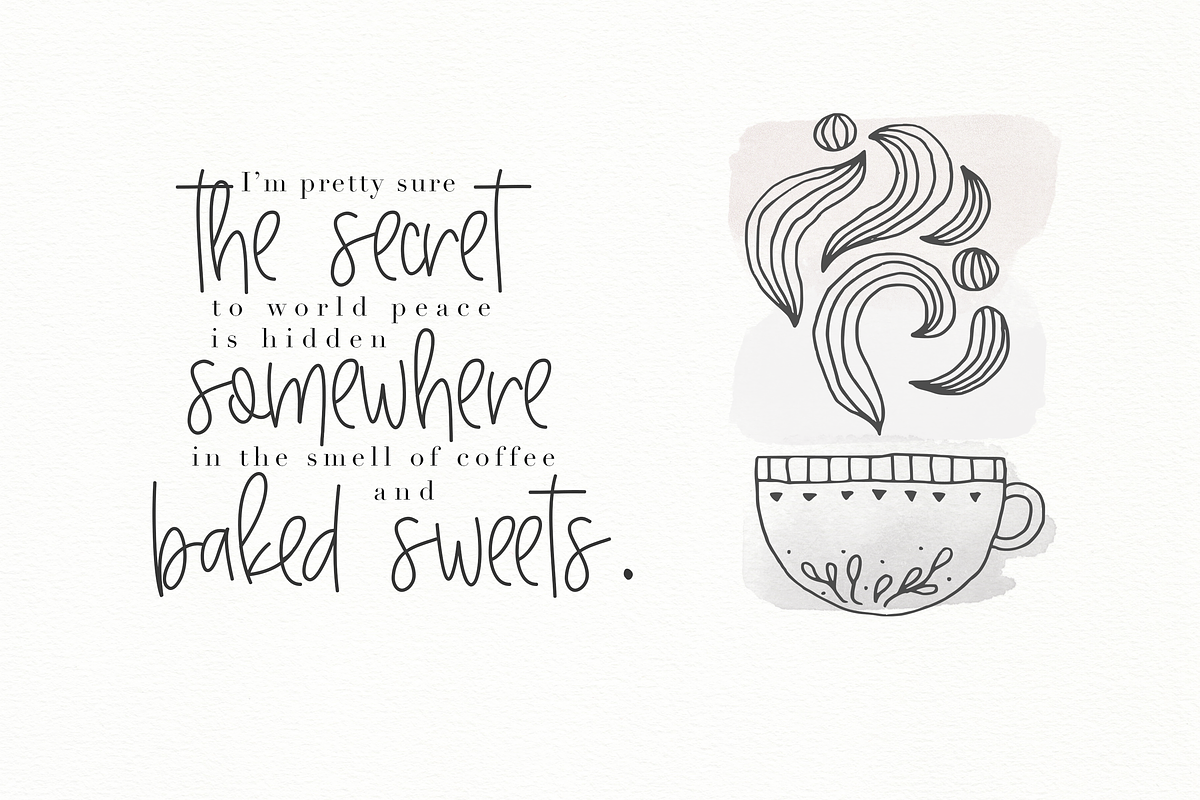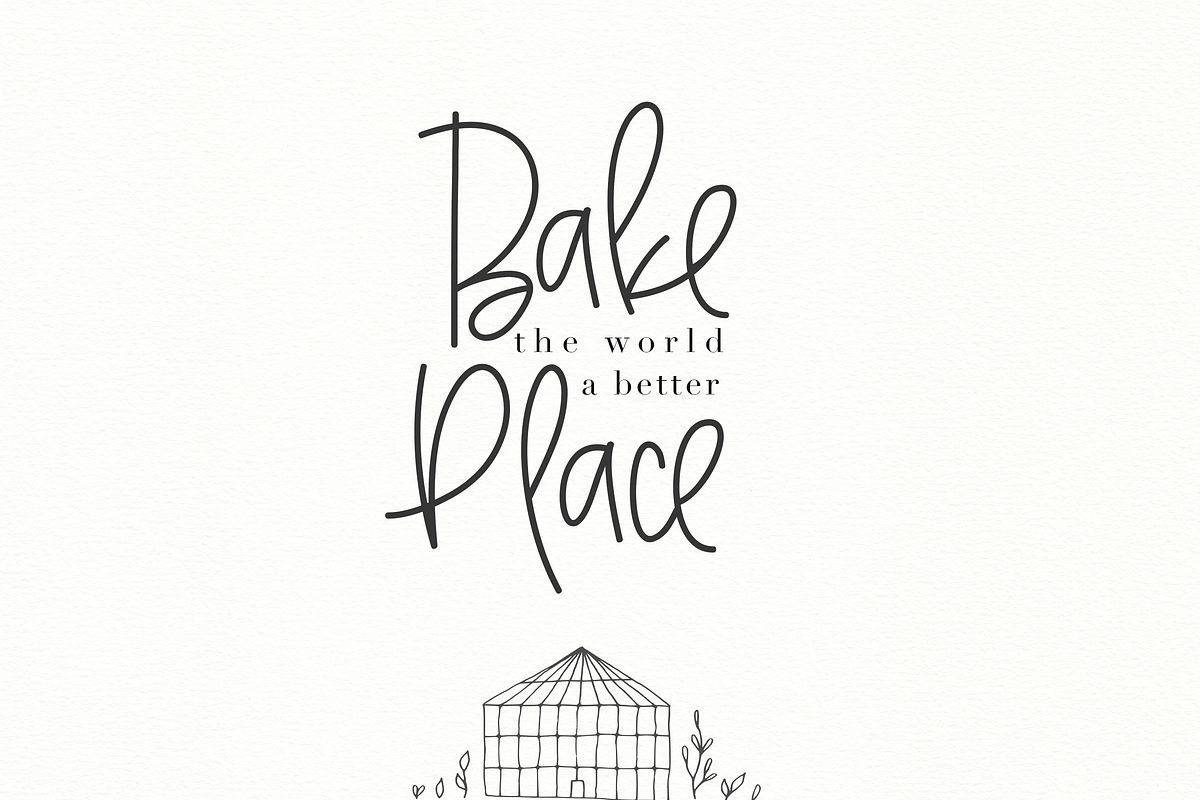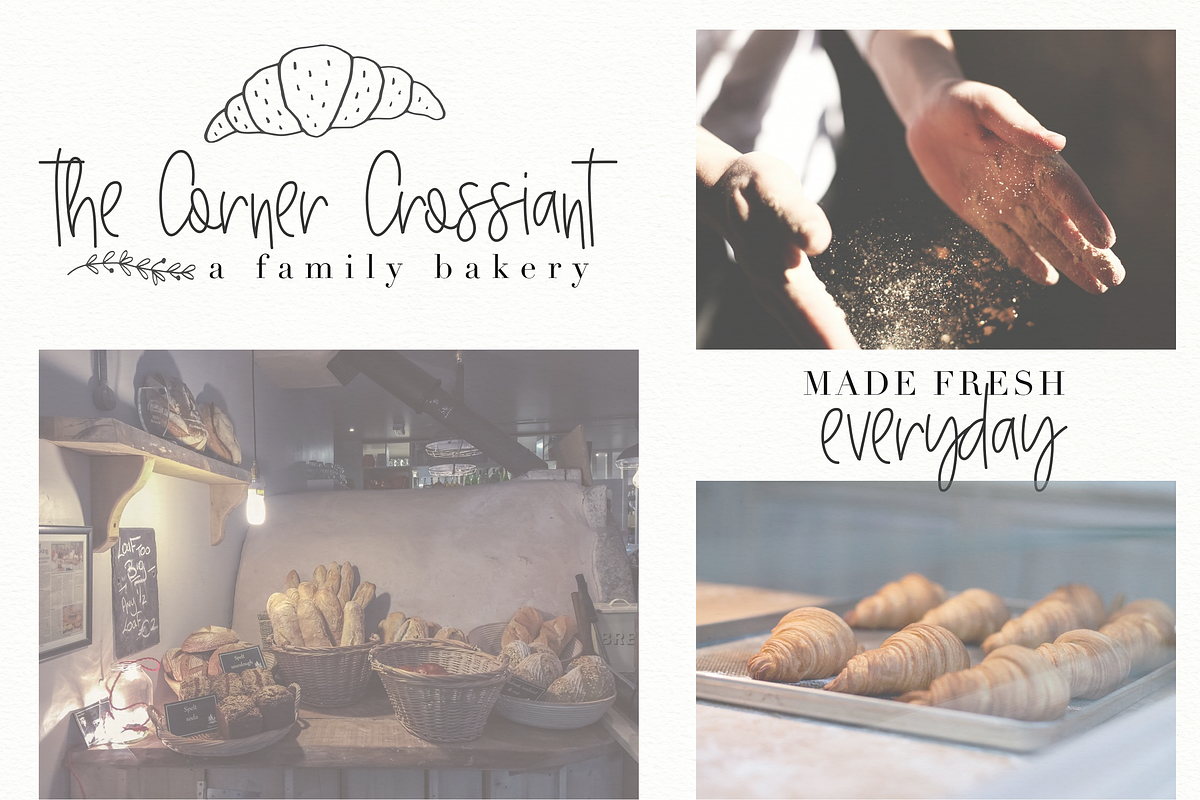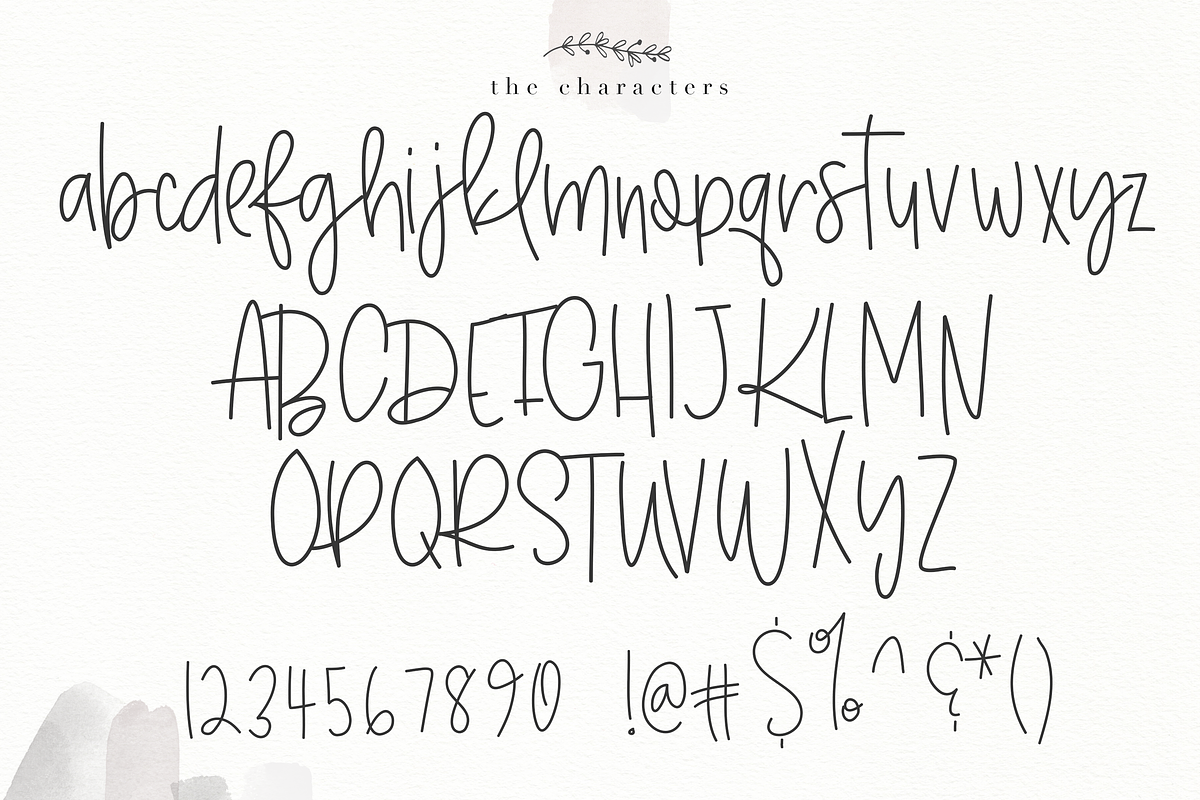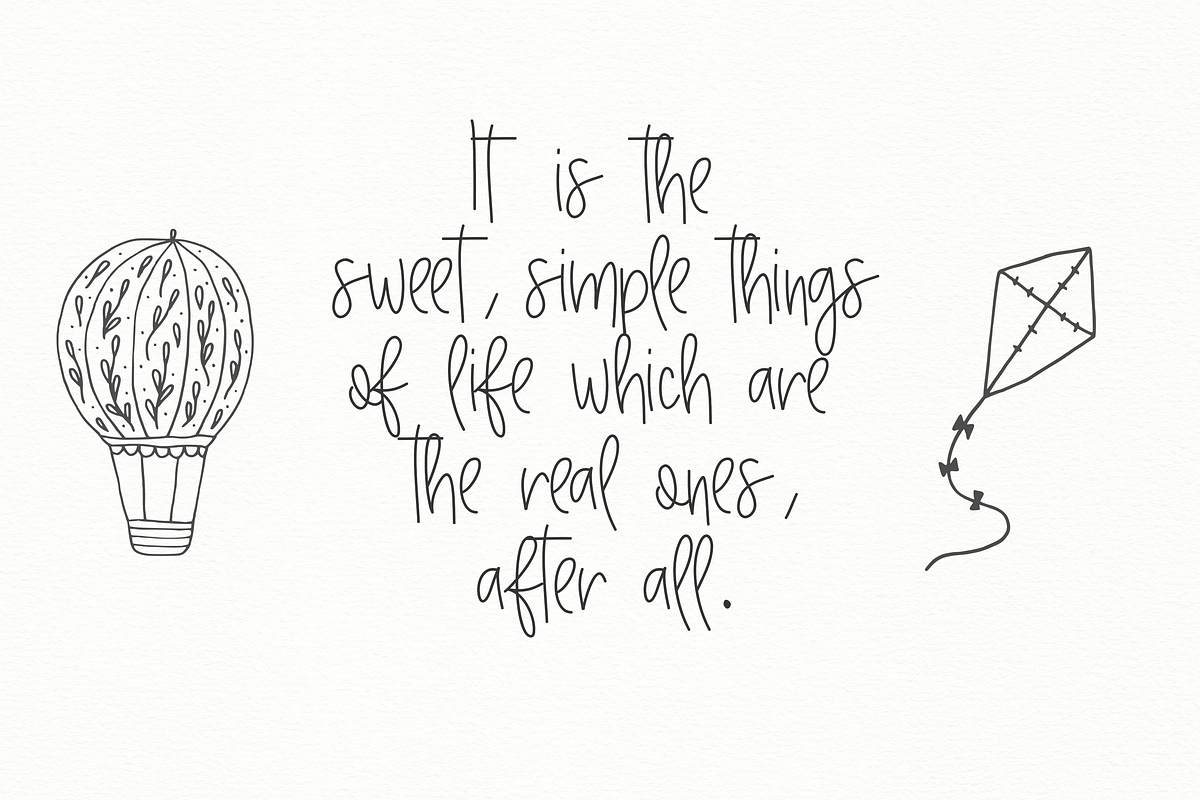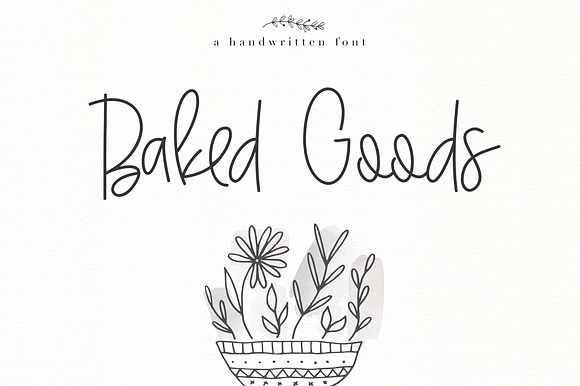
Baked Goods - Handwritten Font
Baked Goods is a handwritten signature/script font. This font is perfect for quotes, headings, blogs, logos, invitations and more!